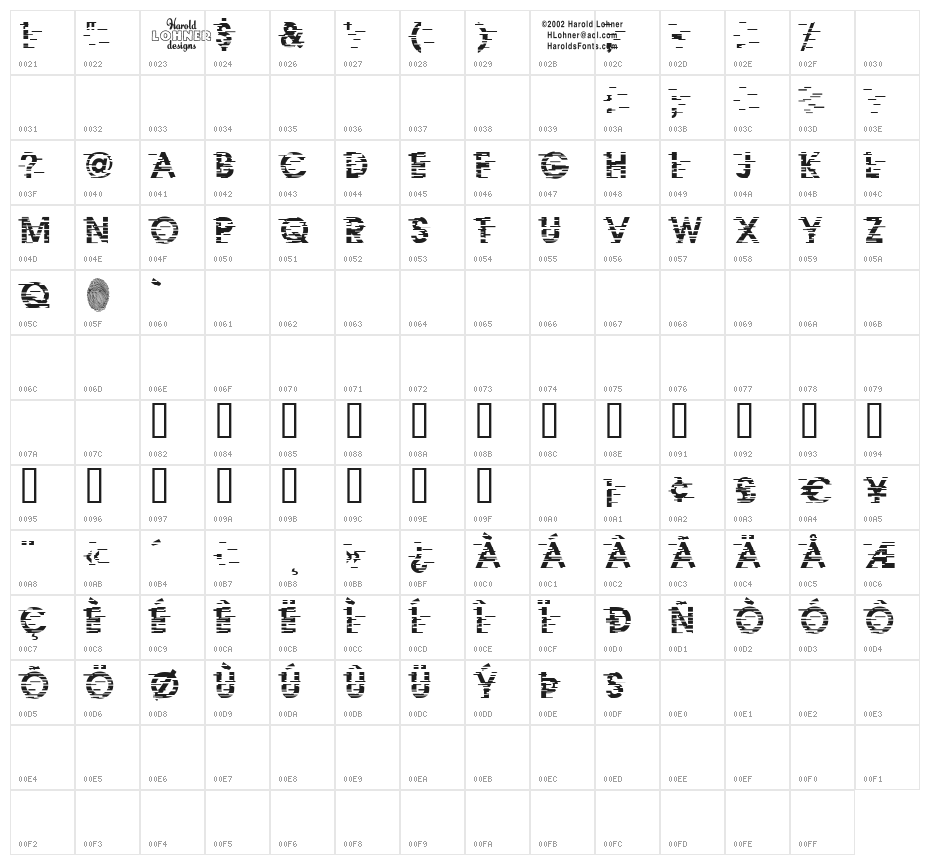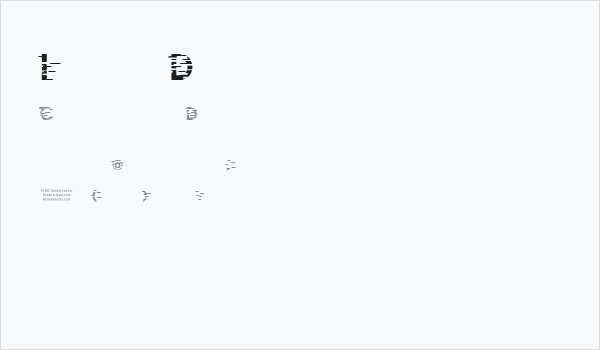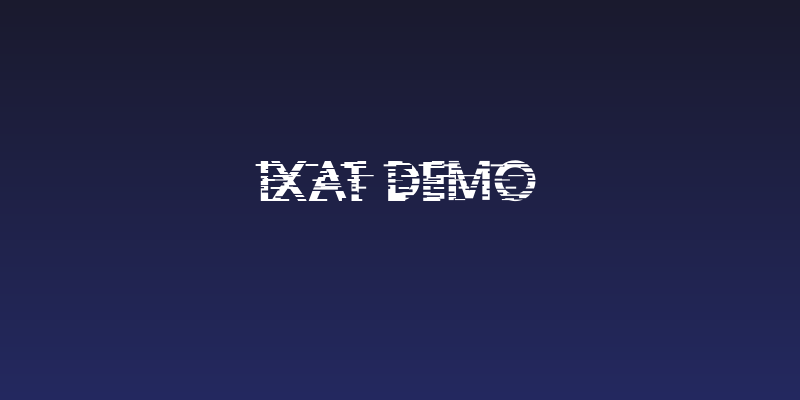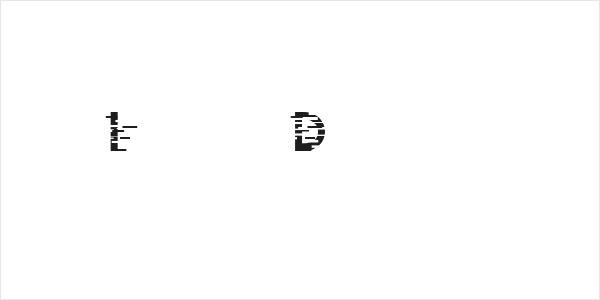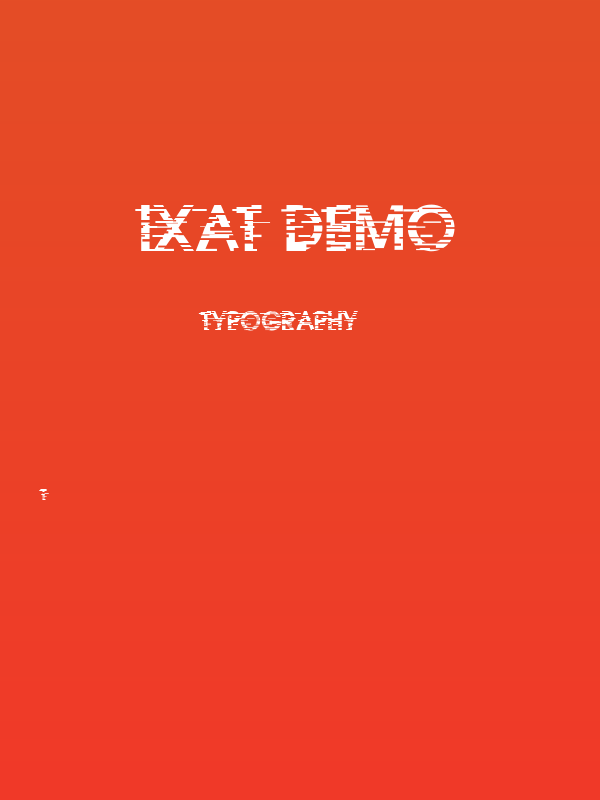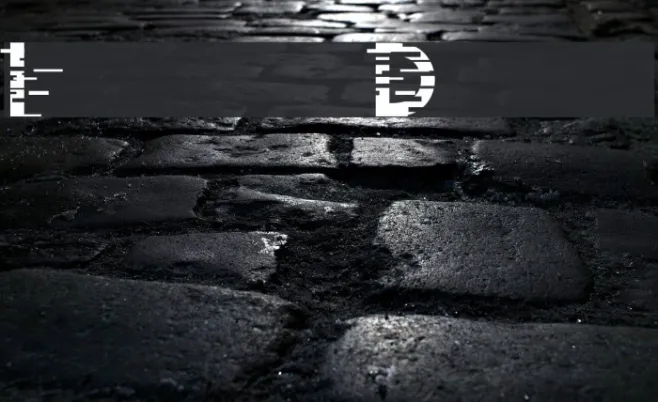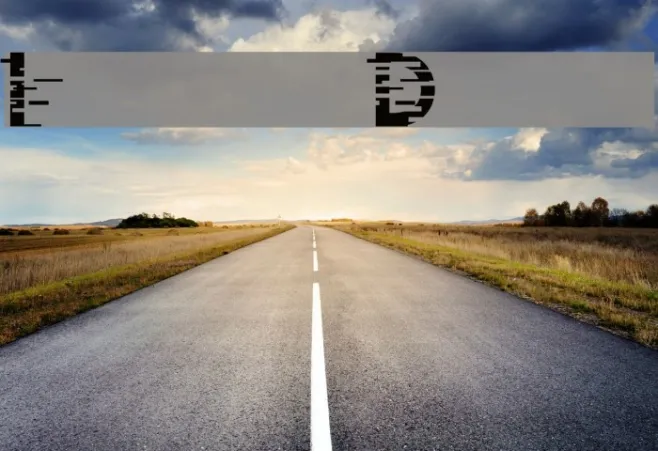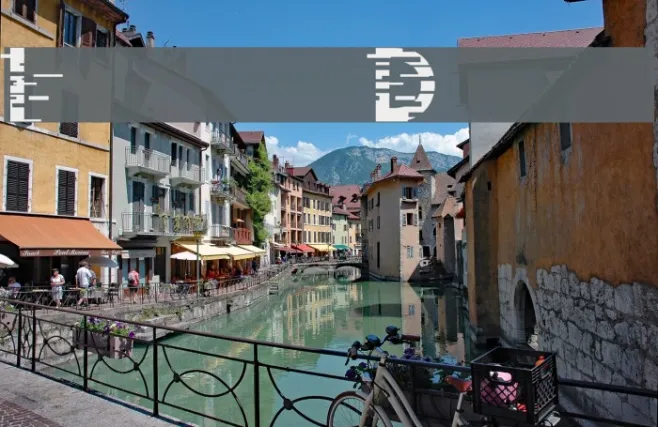
Ixat Demo Font
Ixat Demo Description
This font features a bold, modern design with a distinctive glitch effect that disrupts the characters, creating a sense of movement and digital distortion. The uppercase letters are prominently displayed with horizontal lines slicing through them, giving a fragmented and dynamic appearance. The font maintains a consistent weight throughout, emphasizing its boldness. The characters are tightly spaced, enhancing the compact and impactful look. This style is particularly eye-catching and suitable for projects that aim to convey a futuristic or tech-inspired theme.
| Proposed Projects | Ideal for digital art, tech-themed posters, video game graphics, and modern branding projects. |